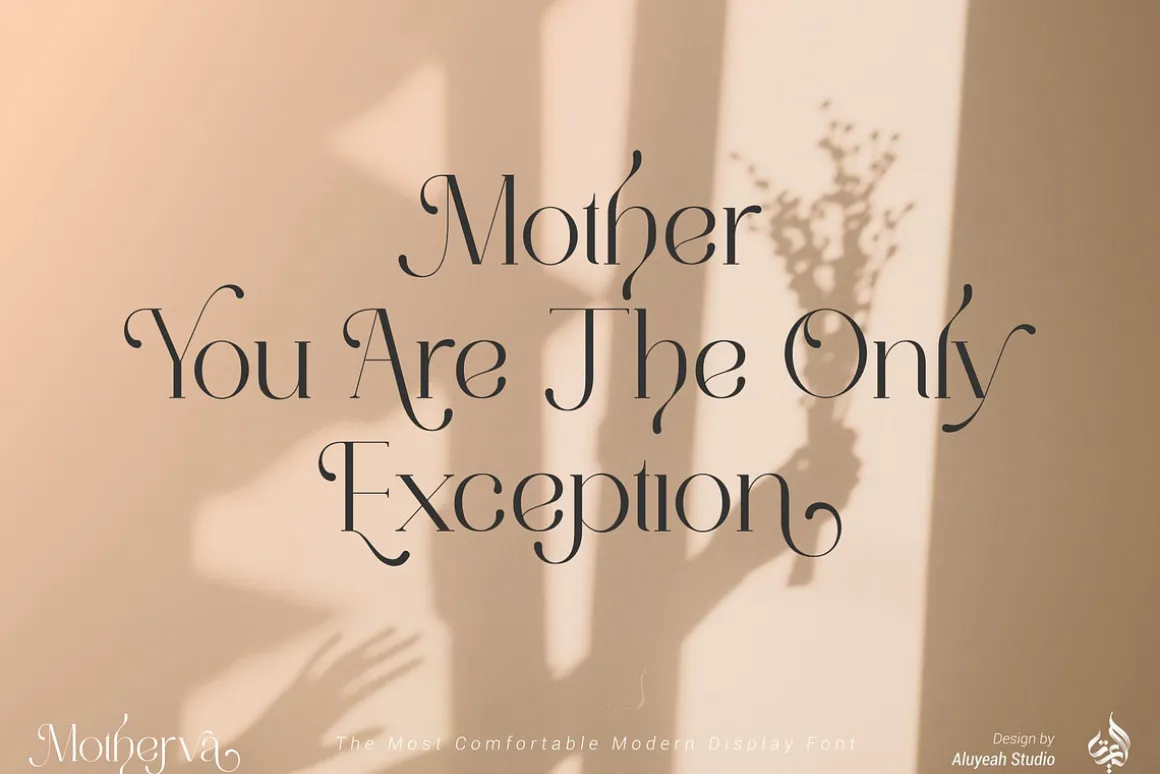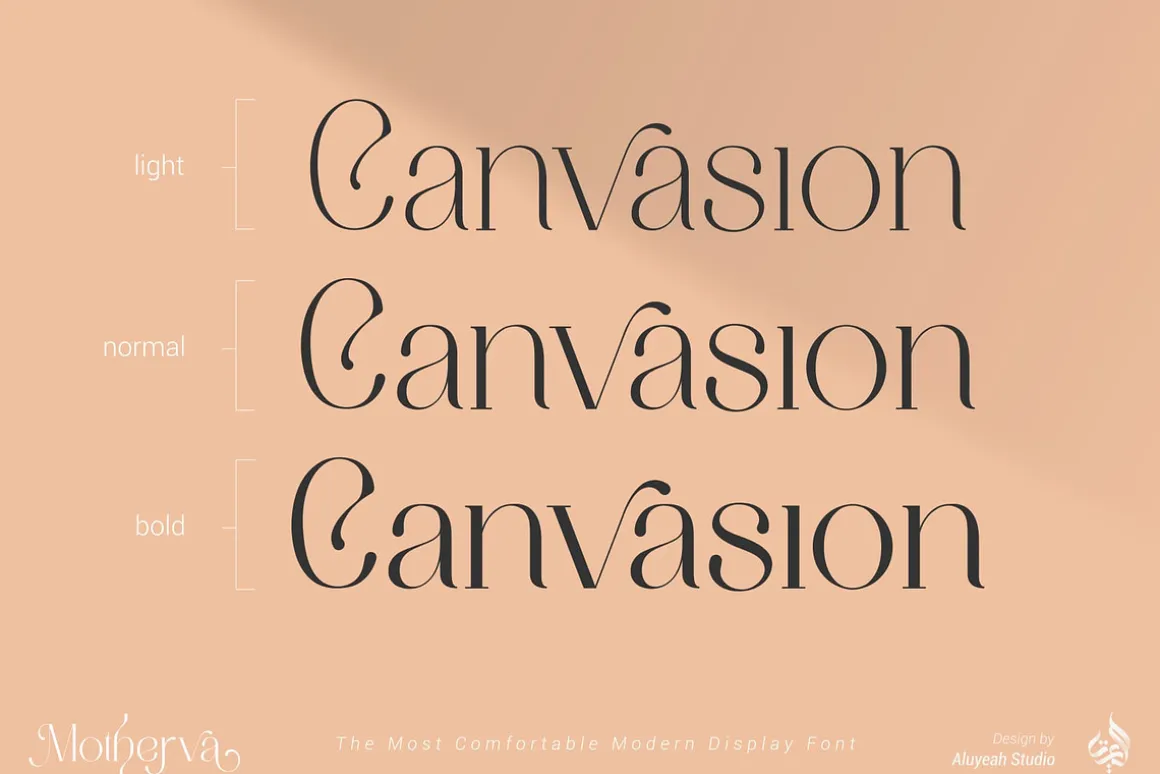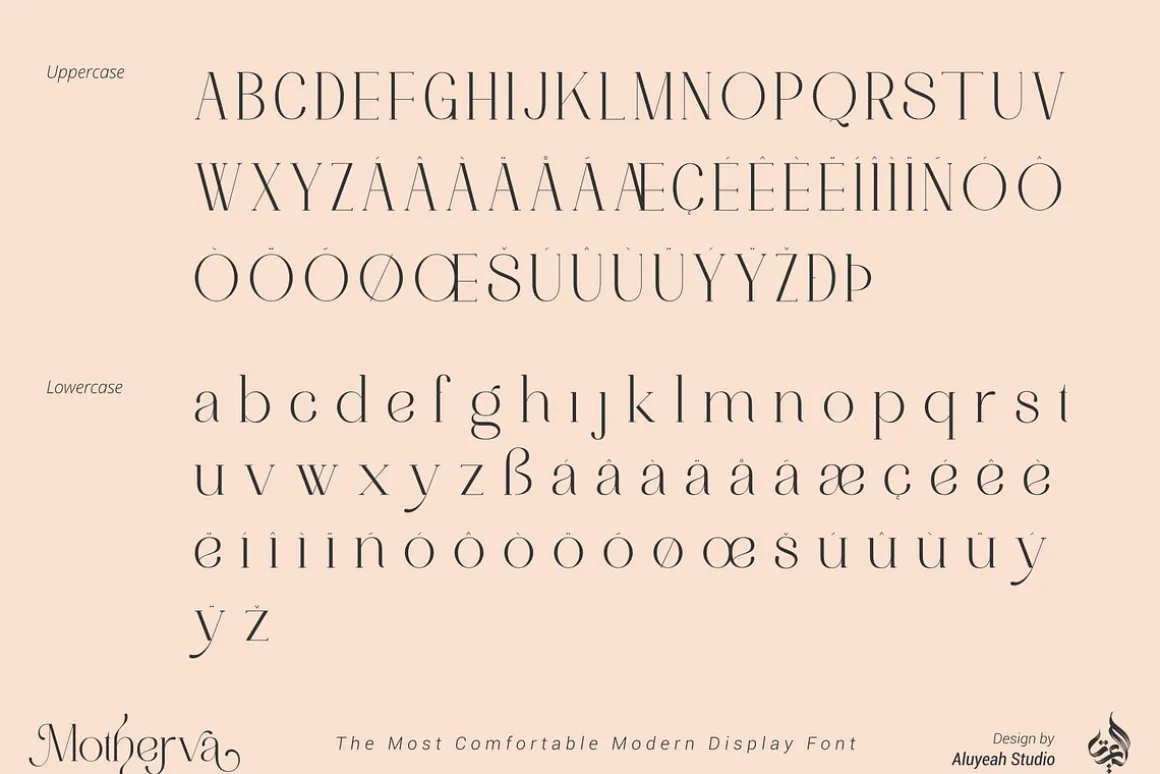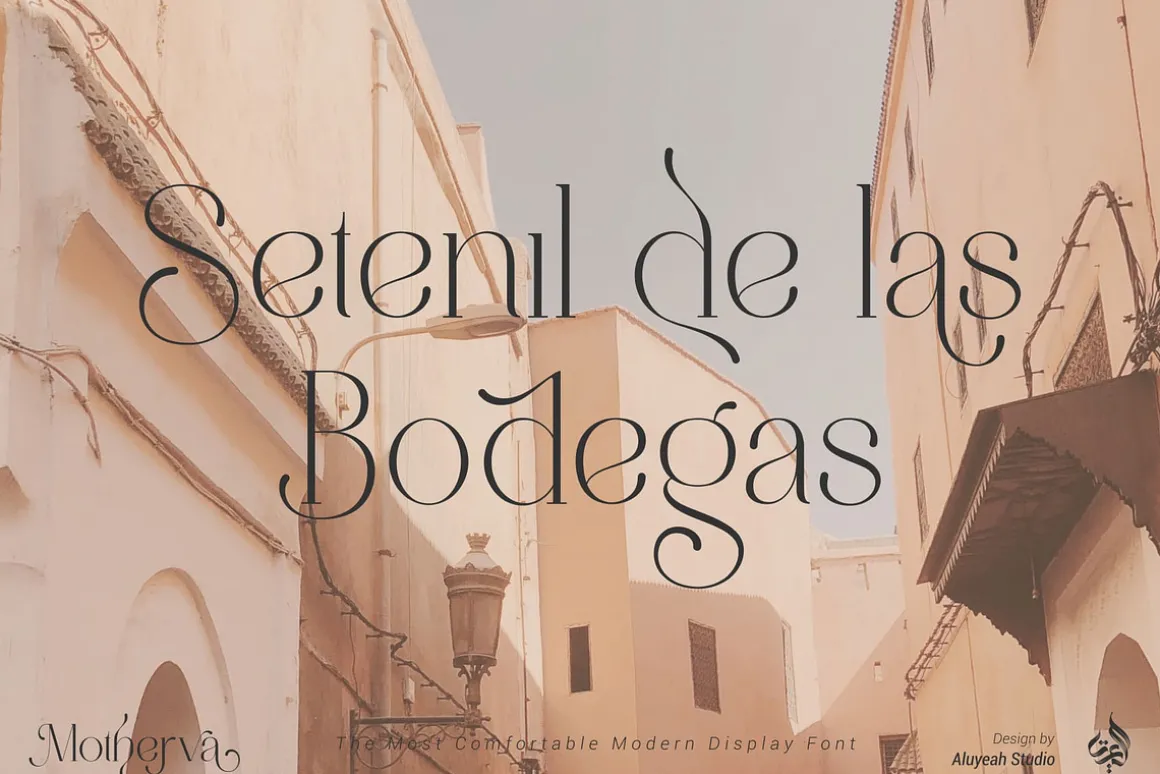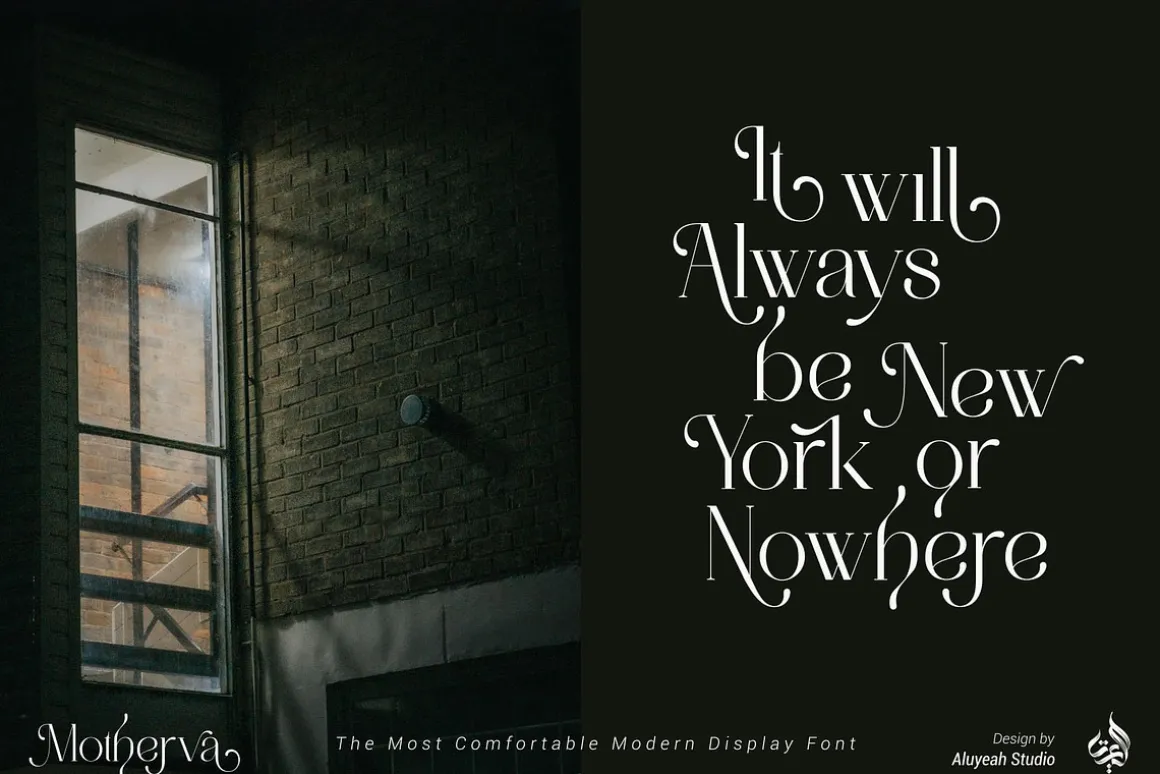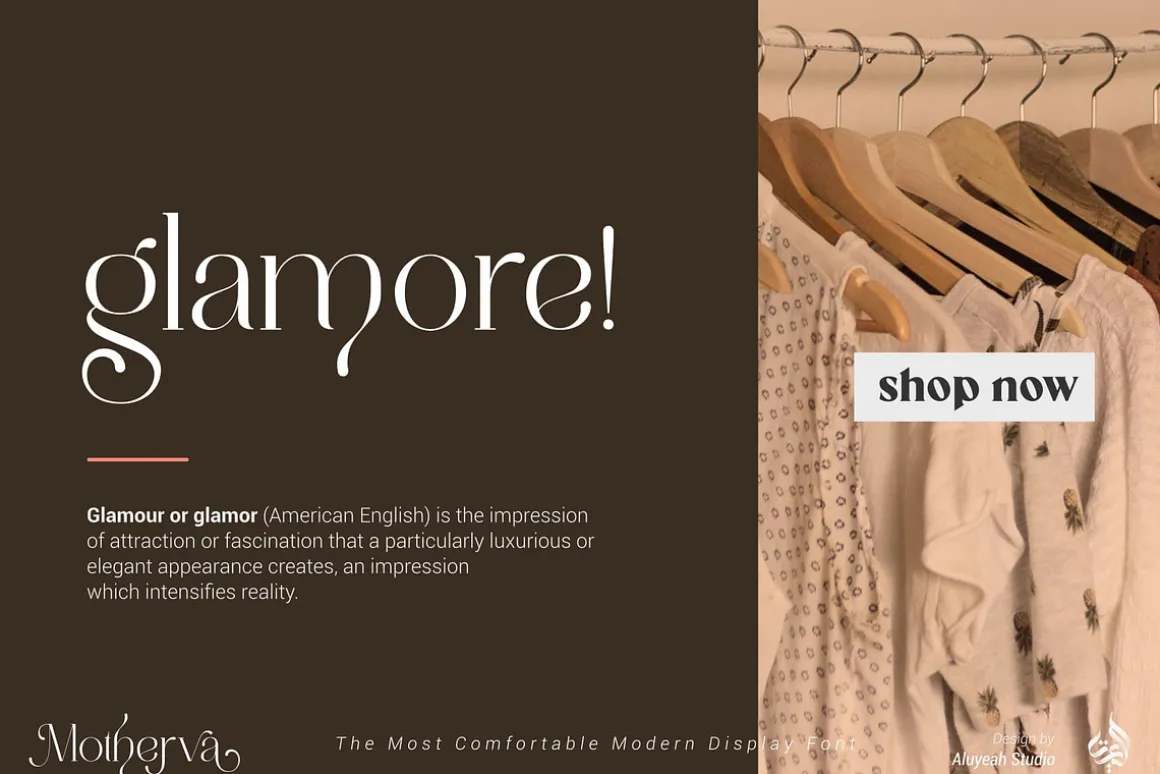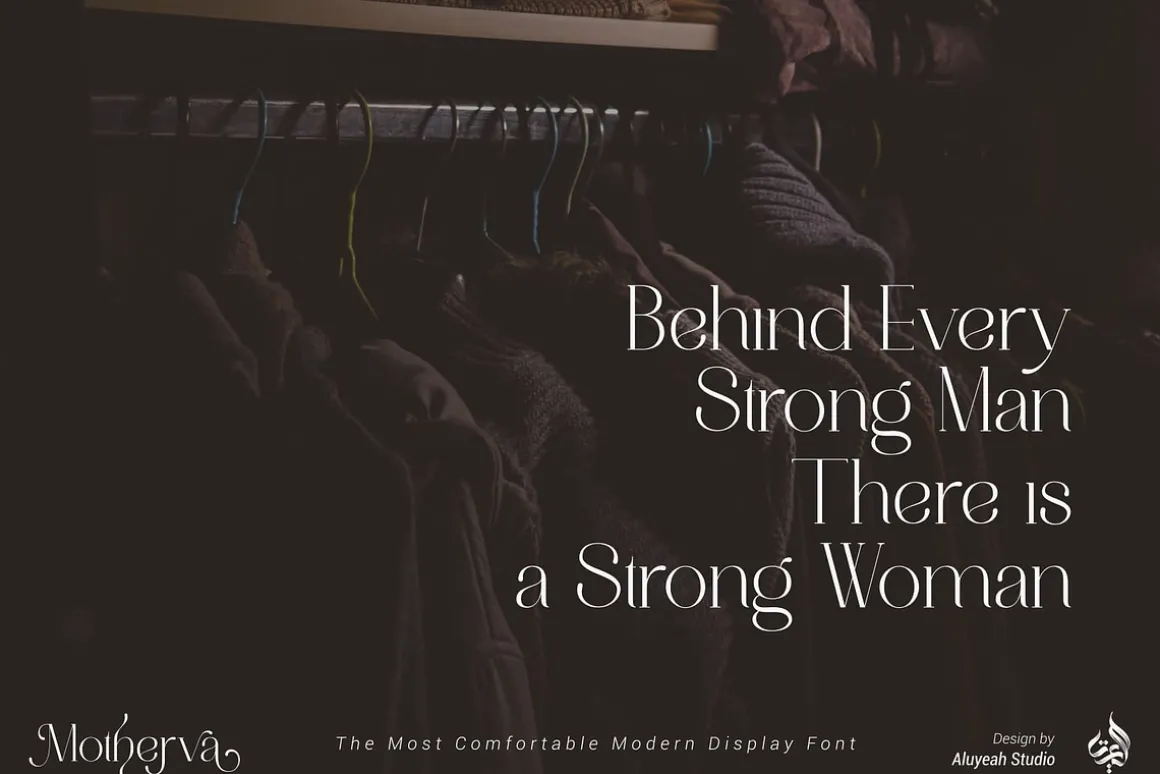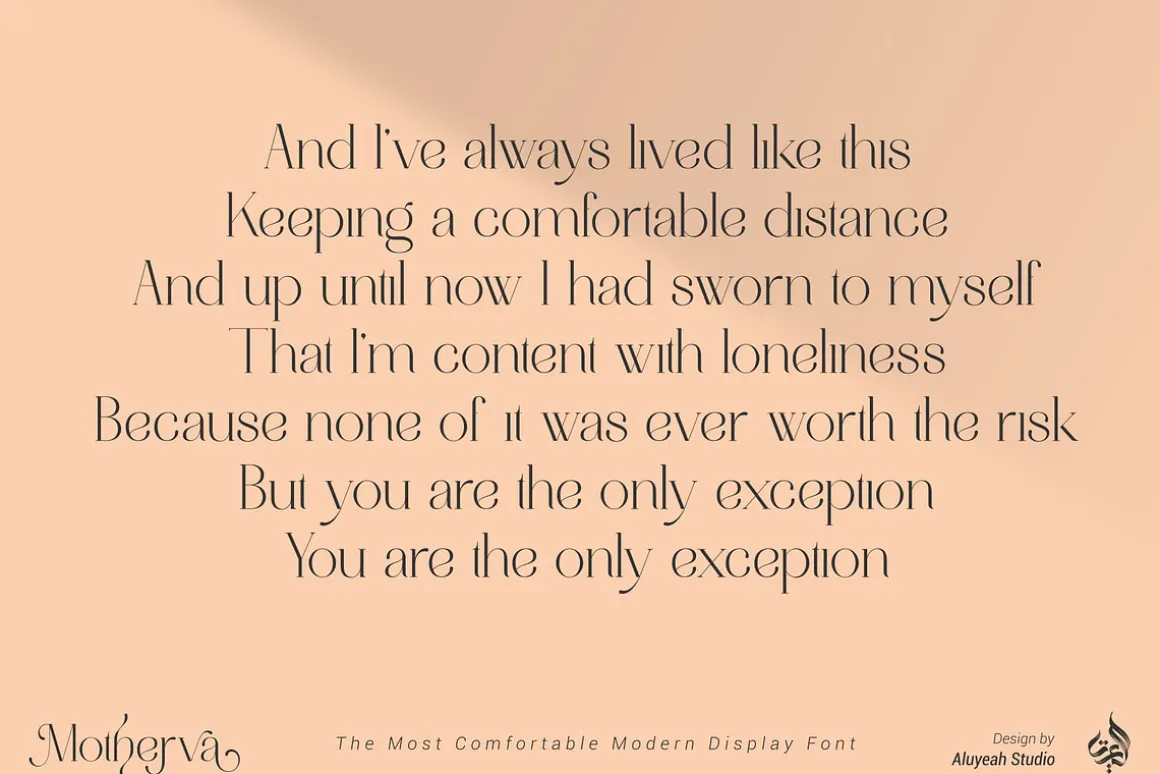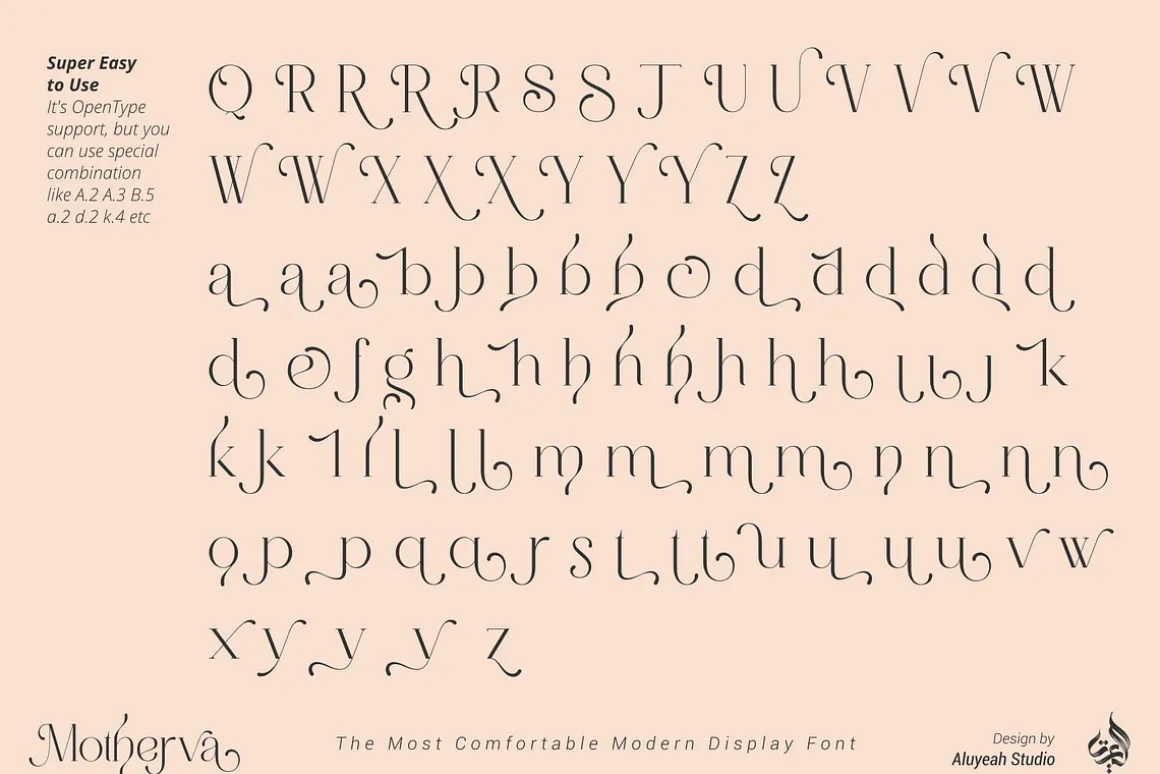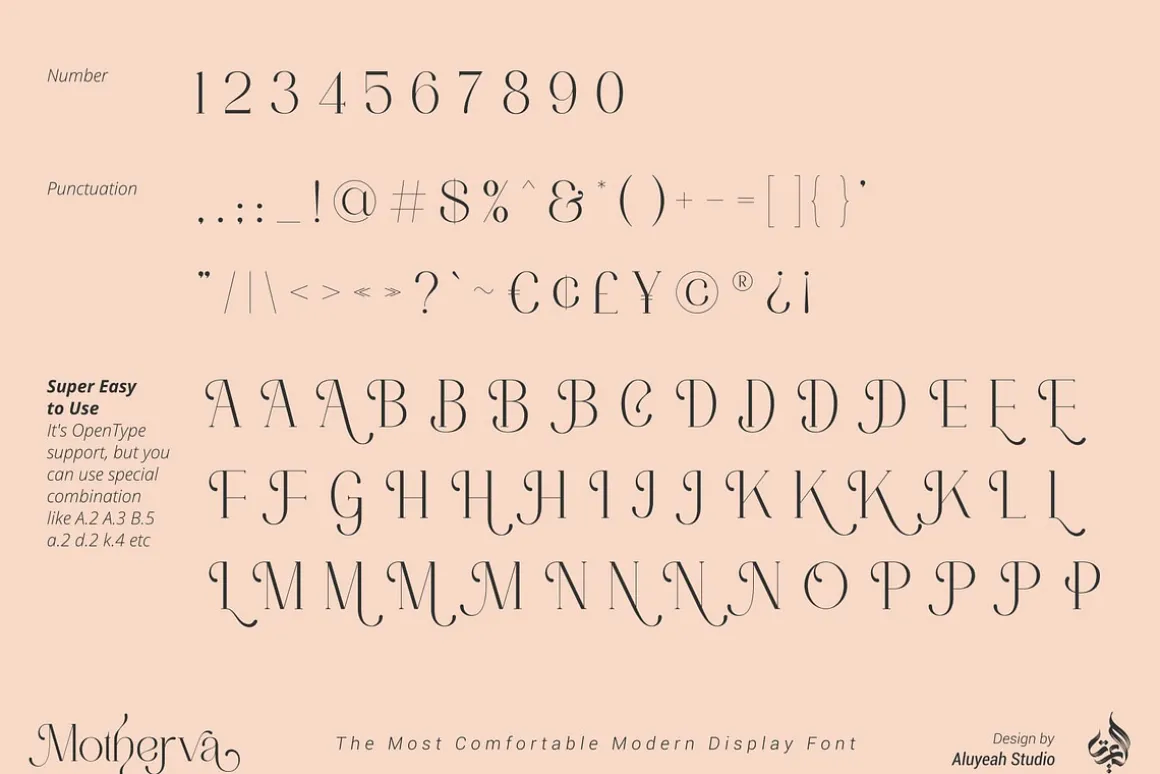
Motherva, the most comfortable modern display font. Coming with 3 weight style. 130+ stunning and super easy to use alternates for each weight style.
Very suitable for magazine, headline, website, ads, product package and all type of design project you have.
- OpenType support
- Multilingual support (15 languages)
- PUA Encoded
- Super Easy to Use alternates – It’s OpenType support but you can easly call alternates character using special combination like A.2 R.3 h.6 etc so you dont need special software.
To get results like the preview just type M.5oth.6er.2v.2a.4